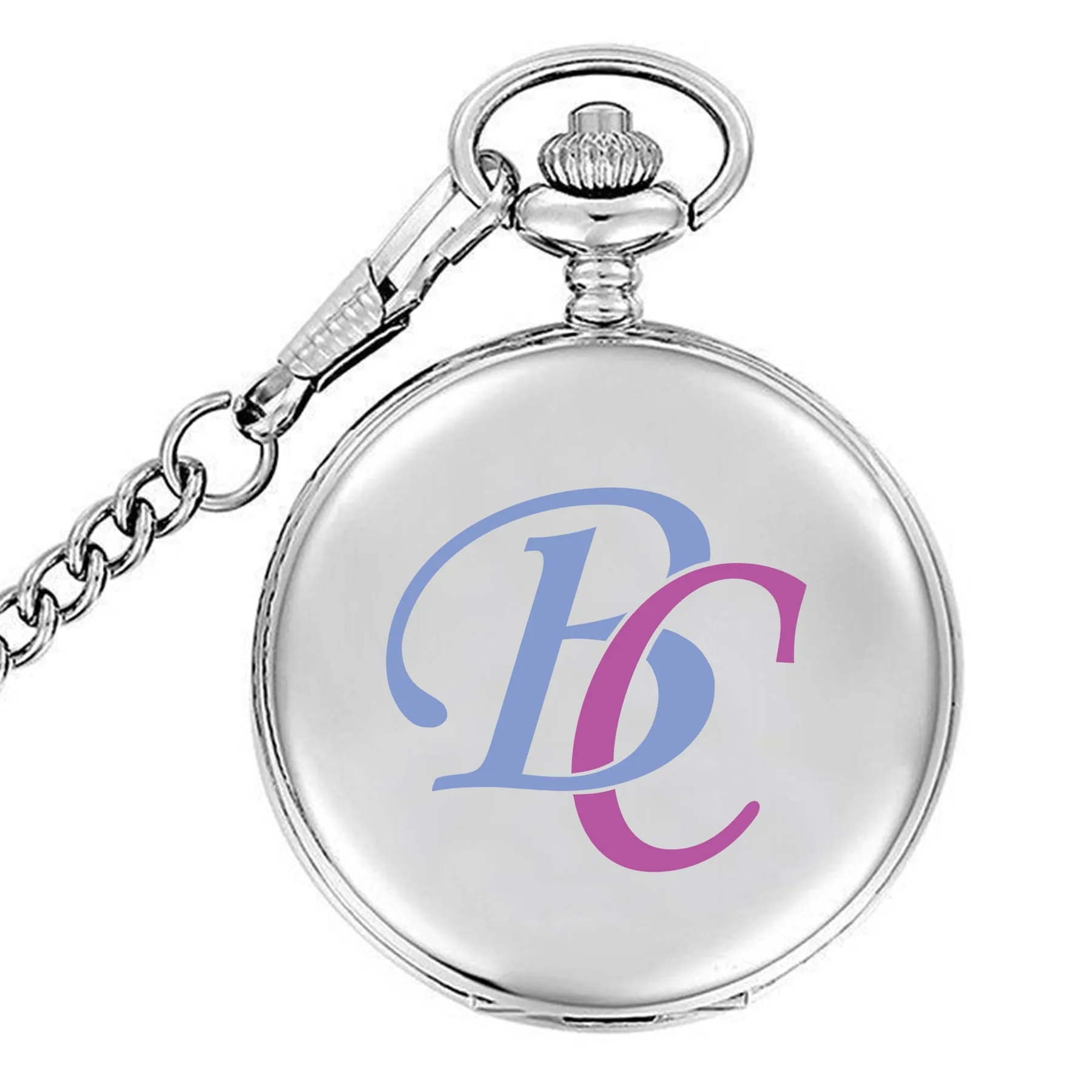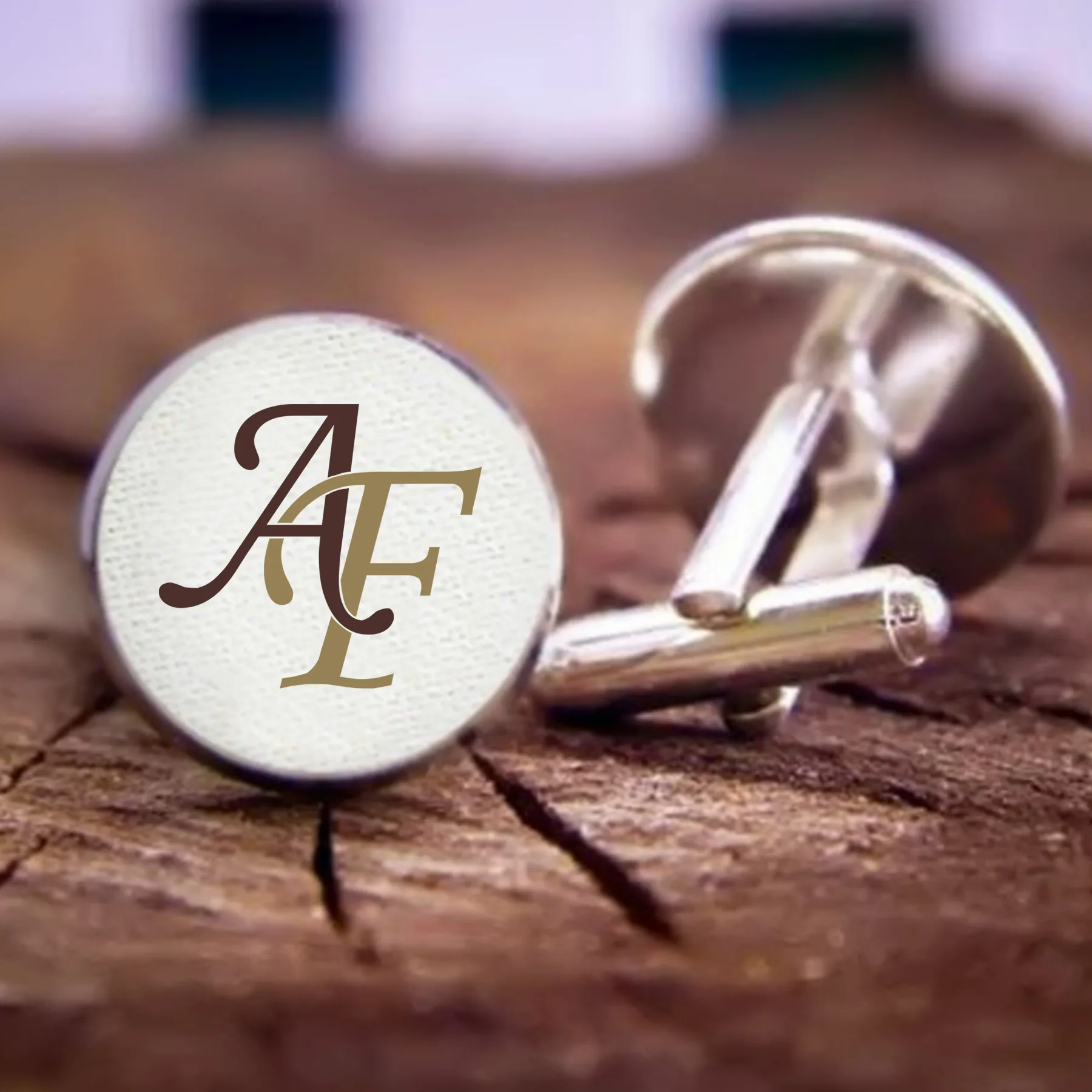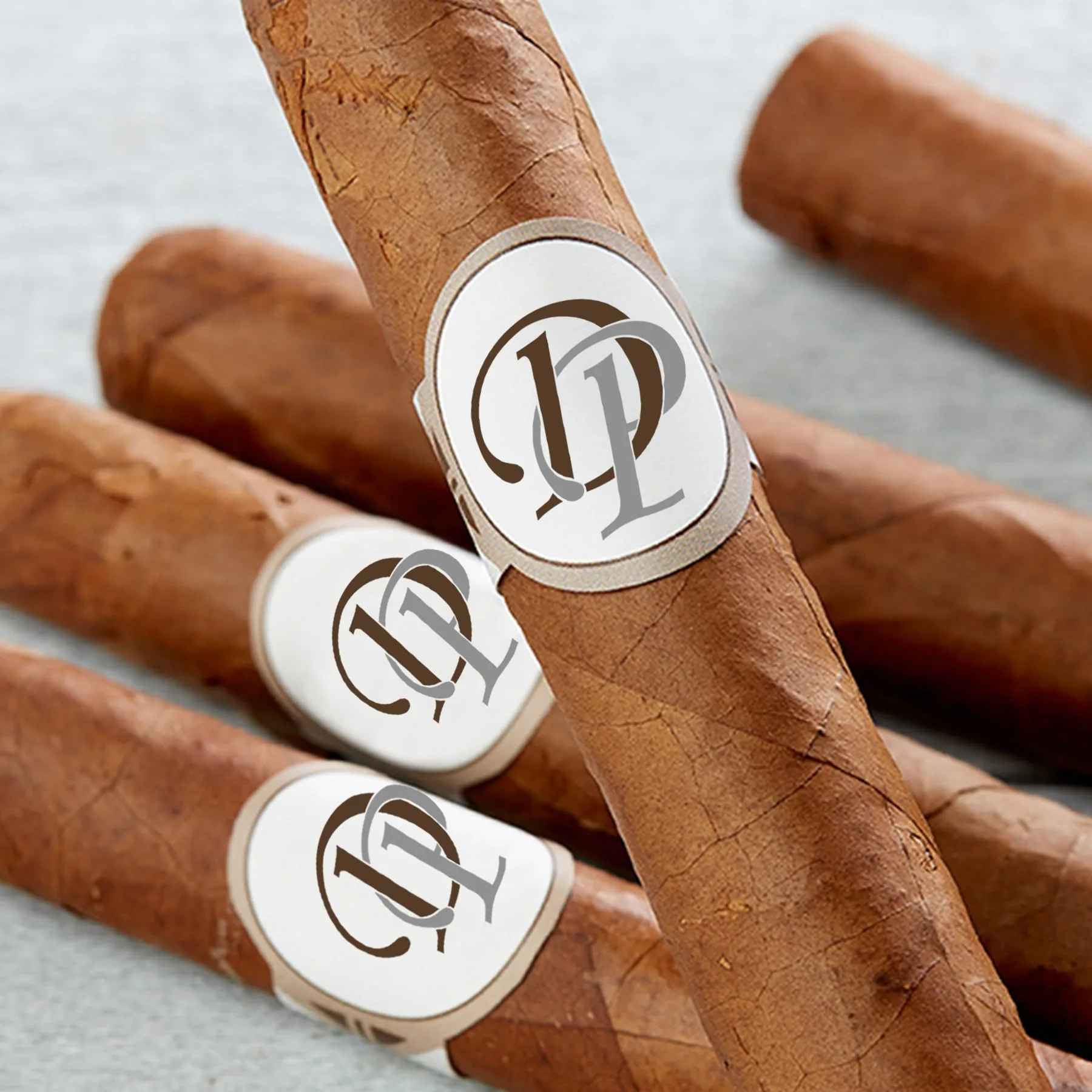
Script Dual Initial Interlock TrueType Font - Keyboard Typable
*** The characters are one-color (single-layer) designs. You need to edit to make multi-color monograms or multi-layered decals like our photos ***